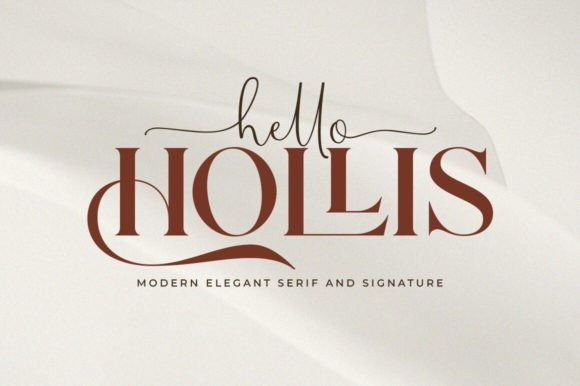
Hello Hollis Font
Hello Hollis Font is a spectacular duo font (serif and script). Incredibly versatile, this font fits a wide pool of designs, elevating them to the highest levels. Add this font to your favorite creative ideas and notice how it makes them come alive.